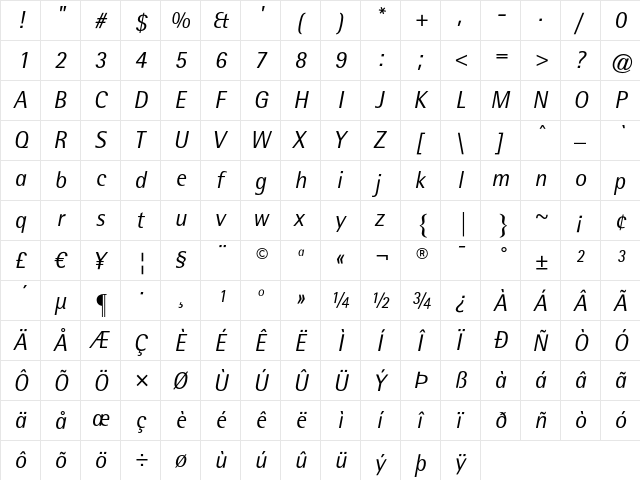
AgfaRotisSemisans Italic Font Preview
AgfaRotisSemisans Italic
Design Context for AgfaRotisSemisans Typeface
AgfaRotisSemisans offers clean, dependable letterforms without strong stylistic allegiance, making it a practical choice for designers who need flexibility. The dynamic lean of this cut emphasises speed and emphasis in any layout.
Pro Tip: Use AgfaRotisSemisans for emphasis, pull quotes, and subheadings where its slanted energy can add rhythm to the layout.